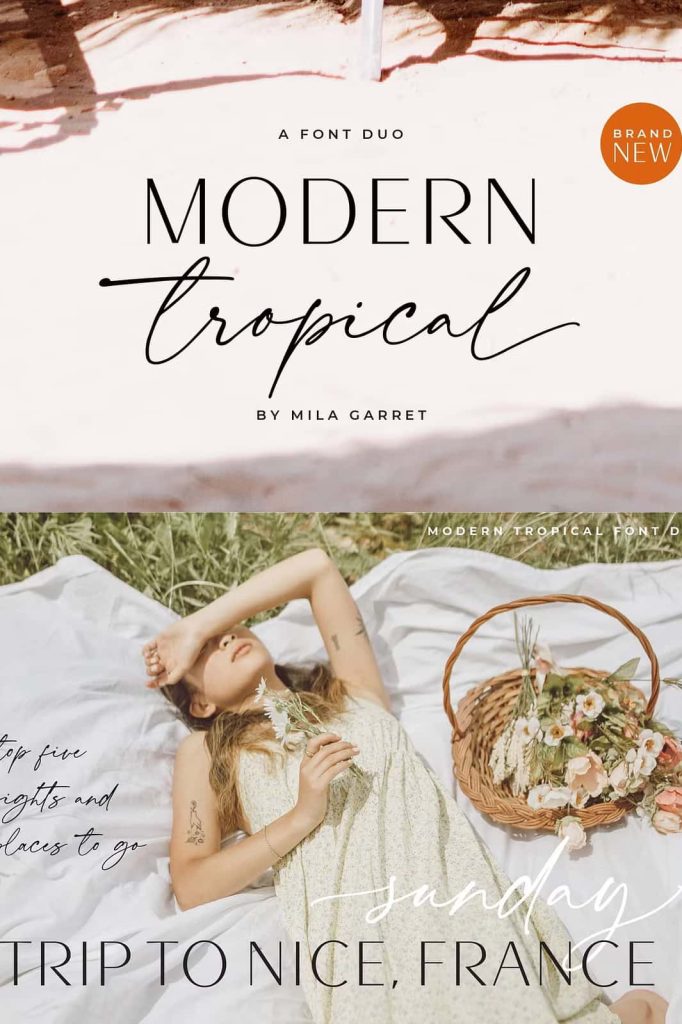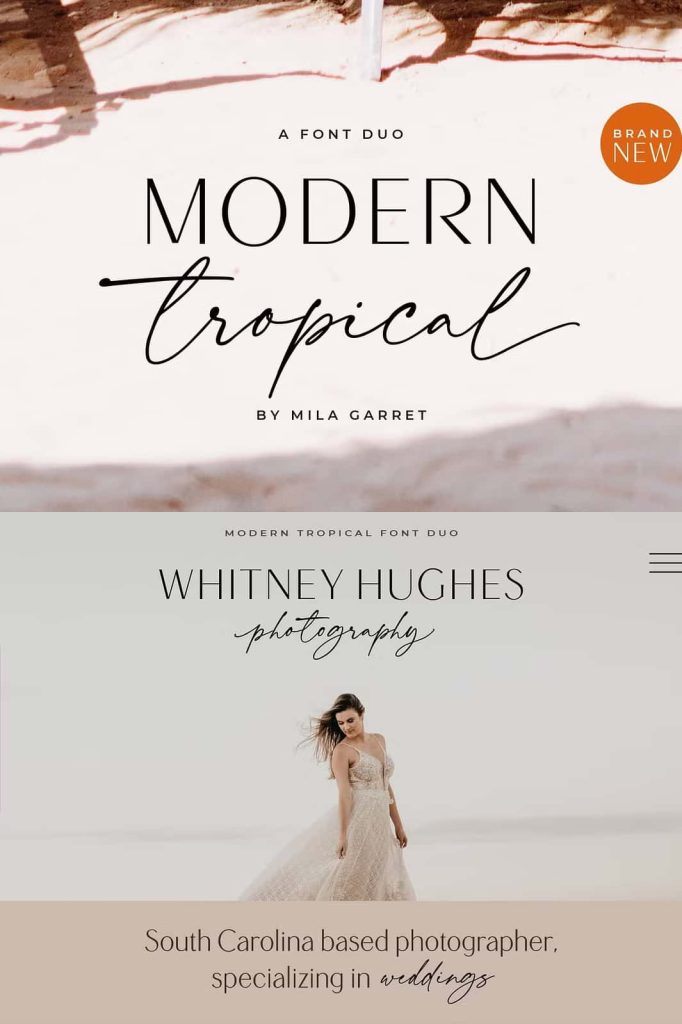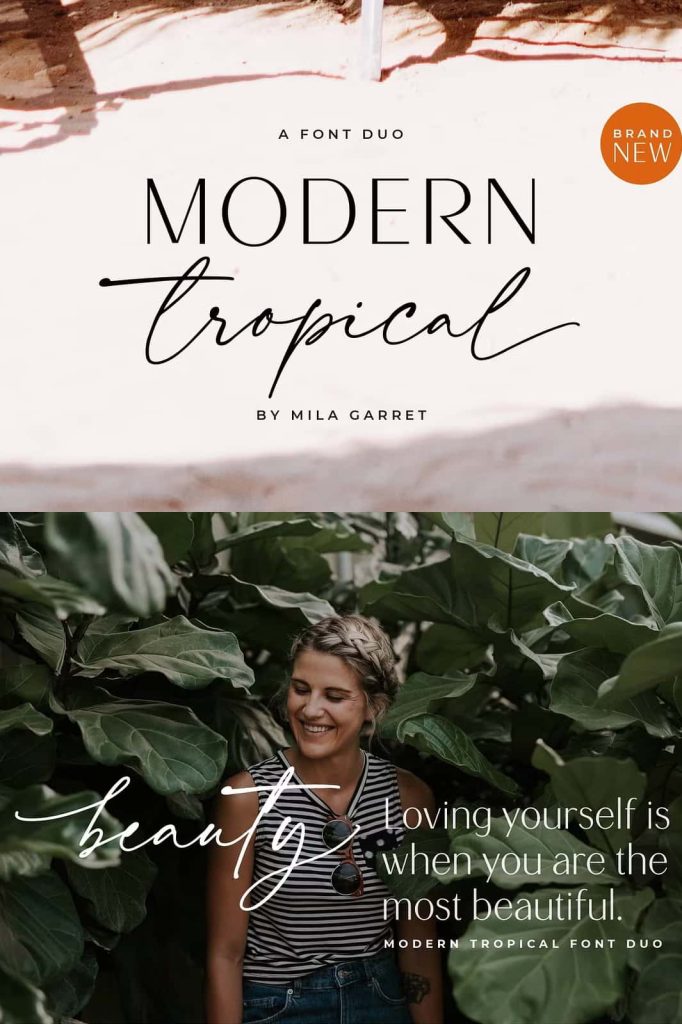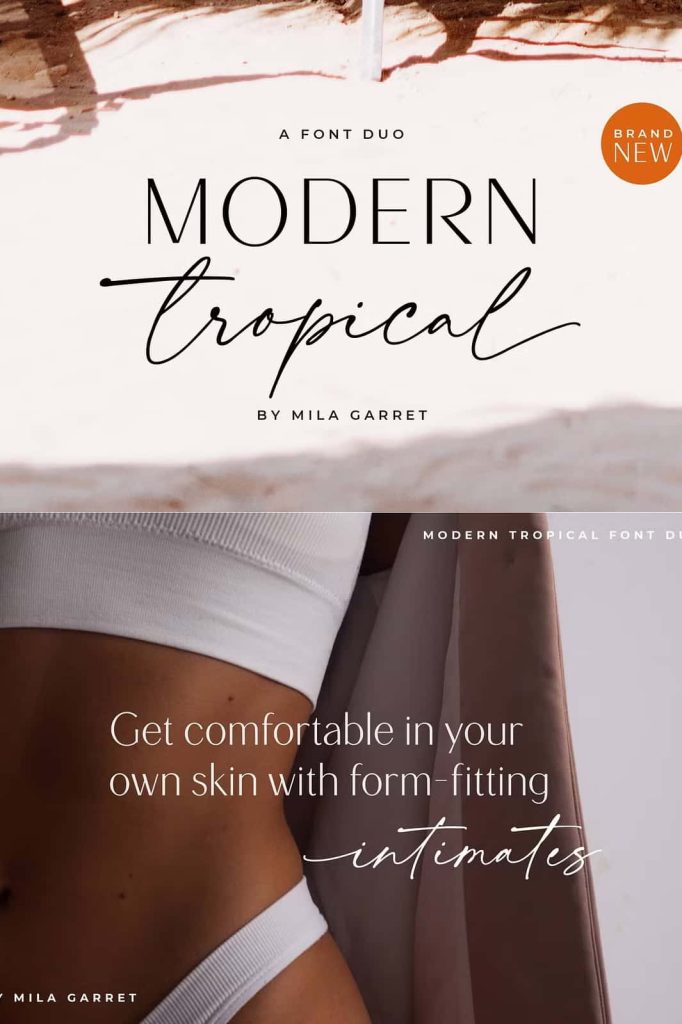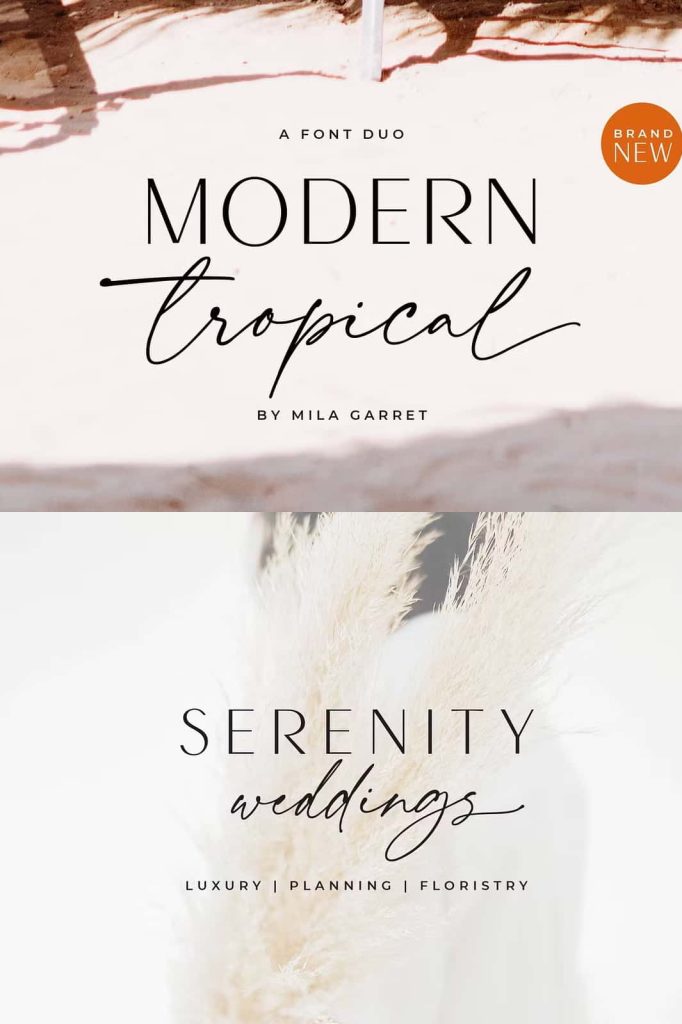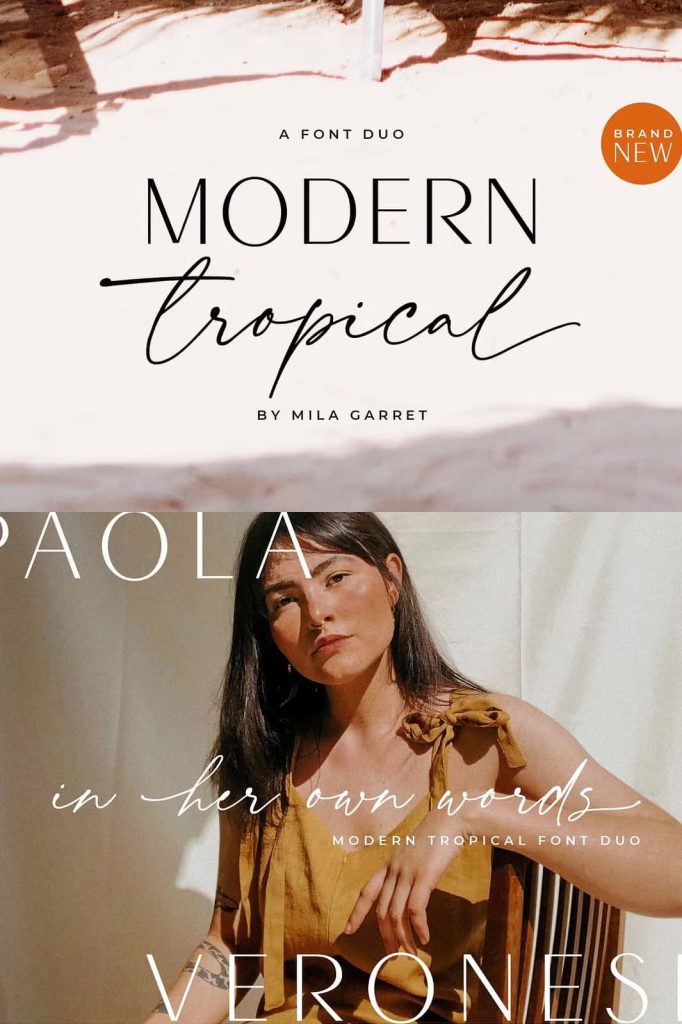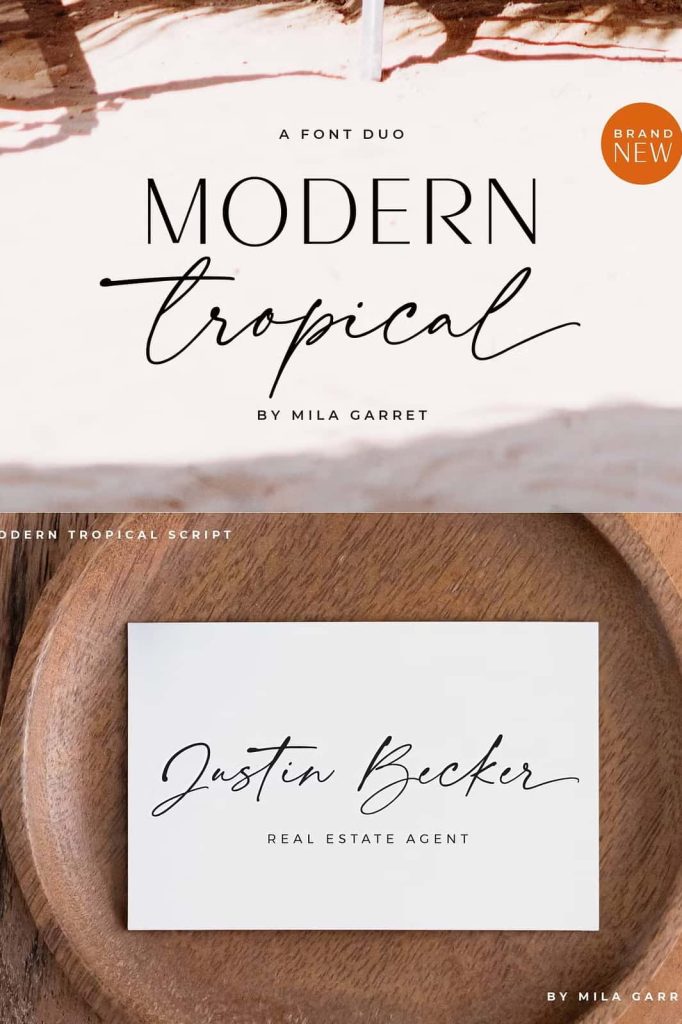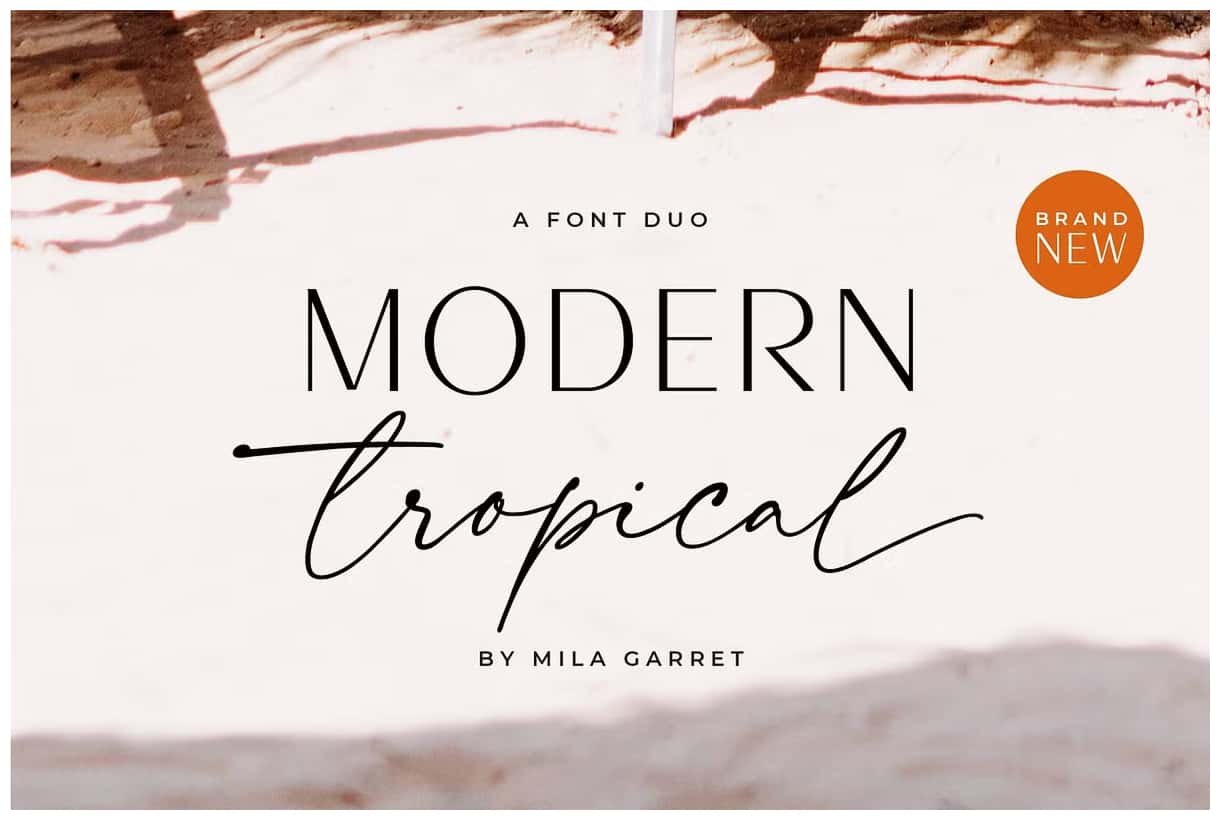
Modern Tropical Font Duo Logo ScriptcoreografyJune 29, 2025Fonts Meet Modern Tropical Font Duo: A minimalist and modern sans-serif typeface paired with an inky Download